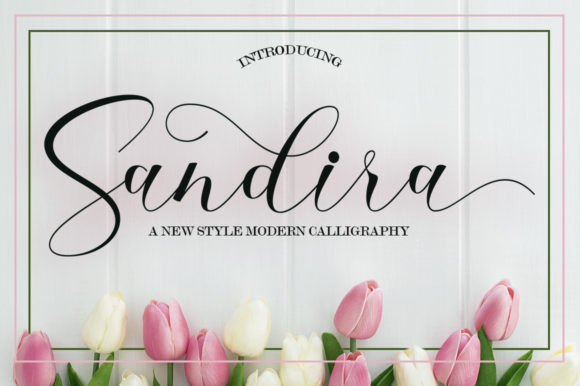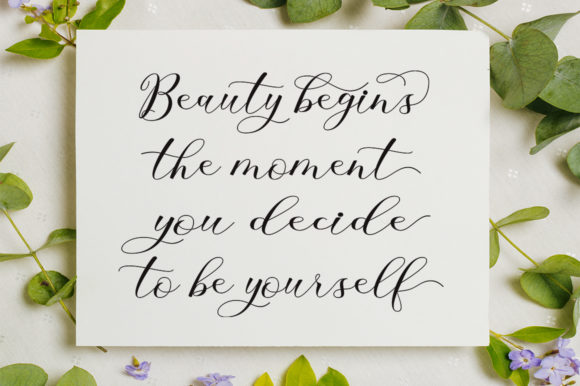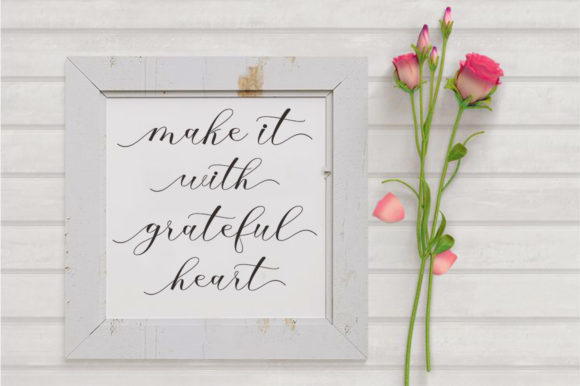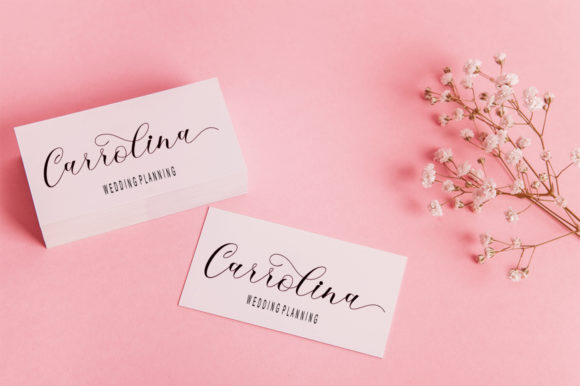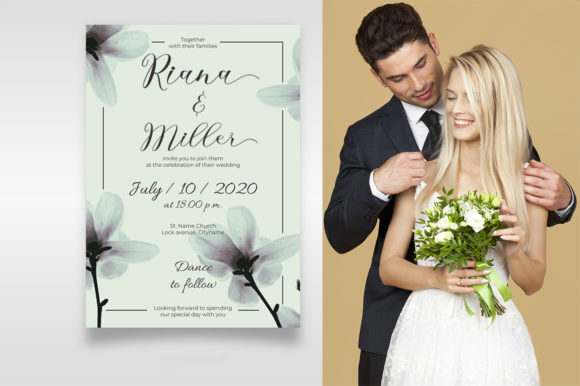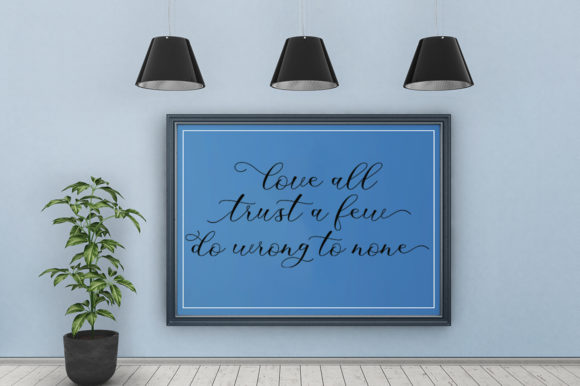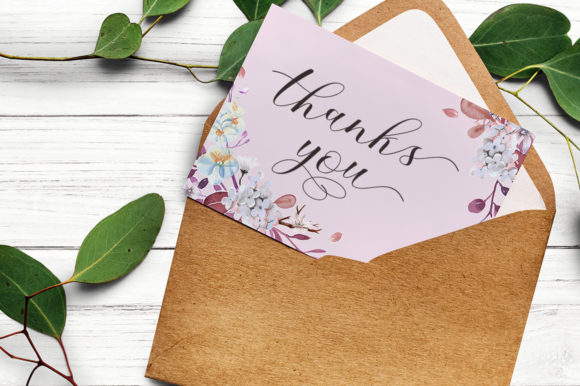
HomeScript FontsSandira Script Font Script Fonts Sandira Script Font FacebookXPinterestWhatsApp Sandira Script Font Poster 2 Sandira Script Font Poster 3 Sandira Script Font Poster 4 Sandira Script Font Poster 5 Sandira Script Font Poster 6 Sandira Script Font Poster 7 About Sandira Script Font Sandira is a modern and elegant script font, perfect for adding a playful vibe to any design idea! DOWNLOAD NOW People also explored Wihelmine Font Wonderland Font Belgium Victory Font Ice Cream Sandwich Font Starflower Font Realistic Mock-ups on Vintage Background Moon Sailor Font Aligator Font Riviera Font 274 0 TagsSandira Script Font Previous articleVallerya FontNext articleWishing Message Font LEAVE A REPLY Cancel reply Comment: Please enter your comment! Name:* Please enter your name here Email:* You have entered an incorrect email address! Please enter your email address here Website: Save my name, email, and website in this browser for the next time I comment. Personal Use Free Browie Personal Use Free Read more about this font Black Friday Personal Use Free Read more about this font Coffete Personal Use Free Read more about this font Splatter Splash Personal Use Free Read more about this font BLOG Best Fonts for T-Shirt Design – Top 2025 Picks In 2025, t-shirt design has become more than just fashion—it's a form of self-expression. Whether you're... Free vs Paid Fonts: Why Investing in Premium Fonts Is Worth It Best Fonts for YouTube Videos: Make Your Thumbnails Stand Out How to Cut Any Font on Cricut: Convert a Font to SVG (Free)